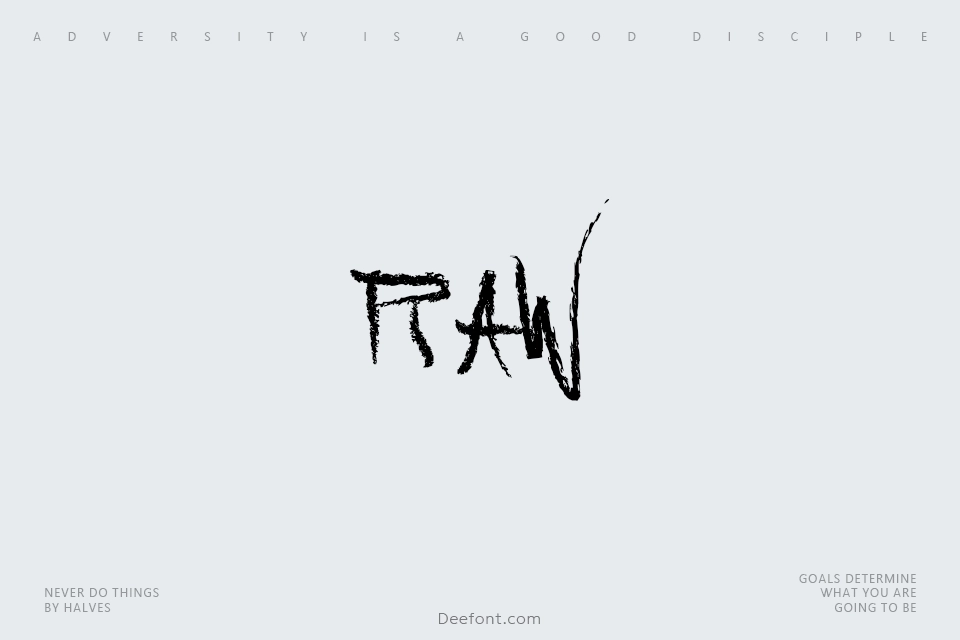
Raw Font
Raw is a distinctive script typeface that captures raw, unpolished aesthetic with its characteristic trash style design. Created by Niels Bonnevie, this font features an expressive, hand-drawn quality perfect for creative projects requiring an edgy, organic look. The typeface showcases irregular letterforms and artistic irregularities that bring authenticity and visual interest to any design, making it ideal for headline applications, artistic compositions, and contemporary creative work that demands authentic character and unconventional charm.